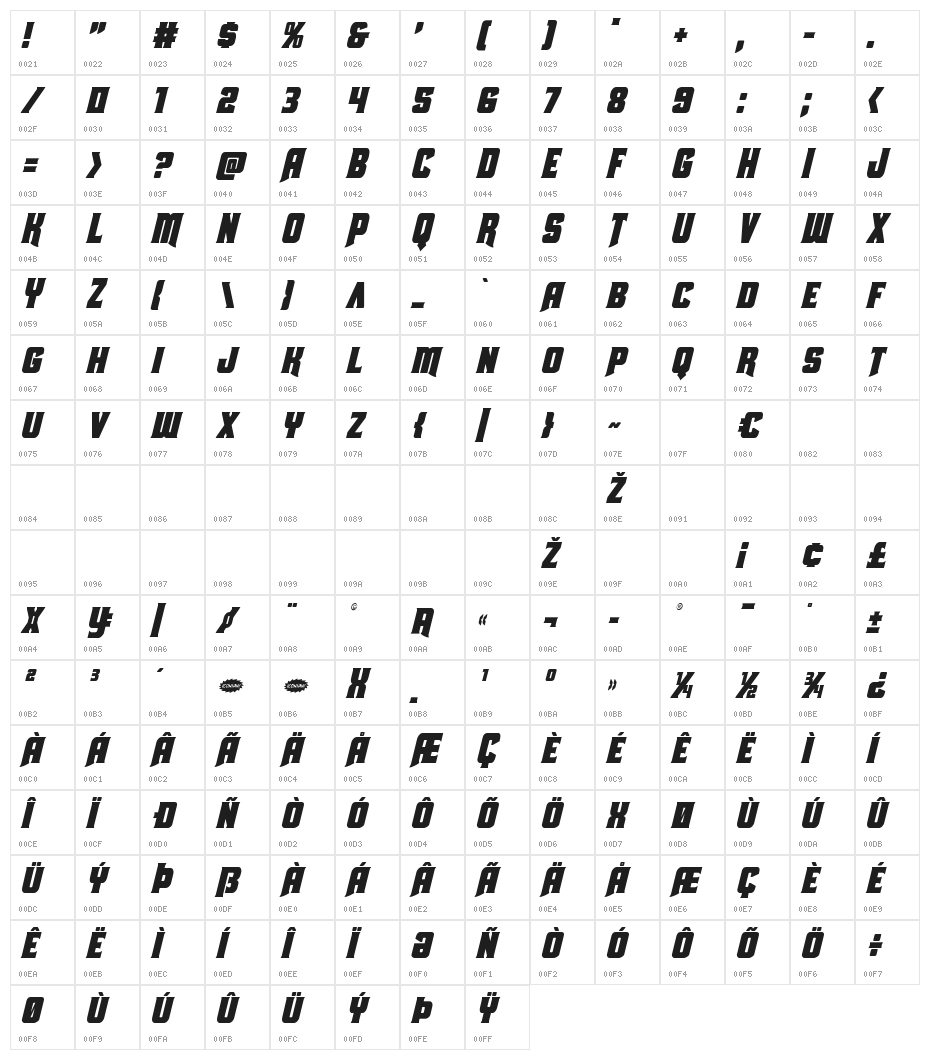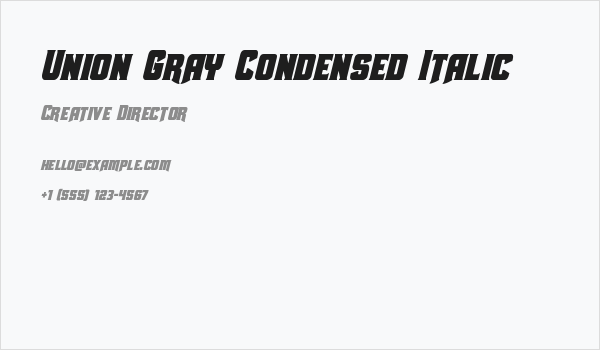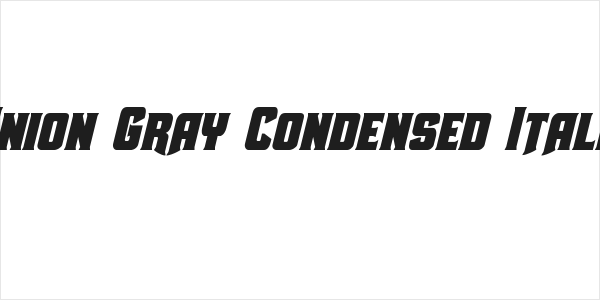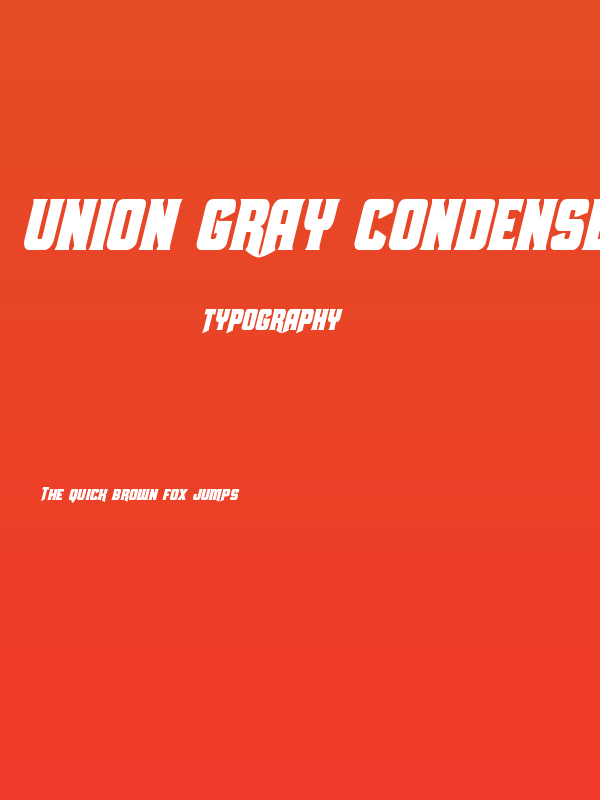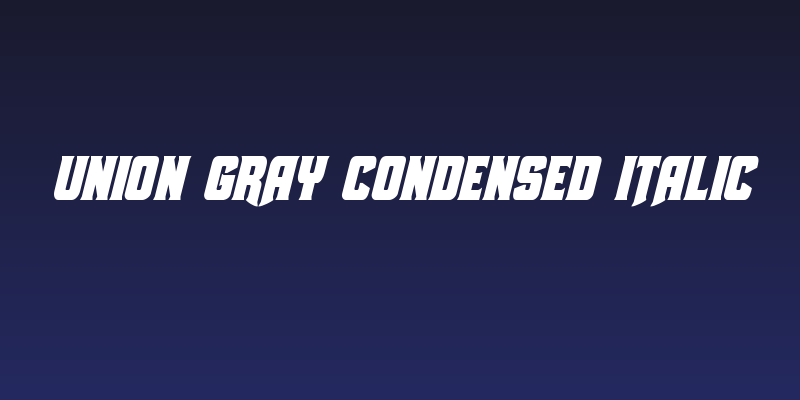
Union Gray Condensed Italic Font
Union Gray Condensed Italic Description
This font features a bold and dynamic style with a condensed and italicized form. The characters are sharply angled, giving them a sense of motion and energy. The uppercase and lowercase letters maintain a consistent weight, with a slight slant that enhances their aggressive and modern appearance. The numbers and special characters follow the same stylistic cues, ensuring uniformity across all glyphs. The overall design is impactful, making it suitable for attention-grabbing headlines and branding projects.
| Proposed Projects | Ideal for sports branding, dynamic posters, and impactful headlines. |